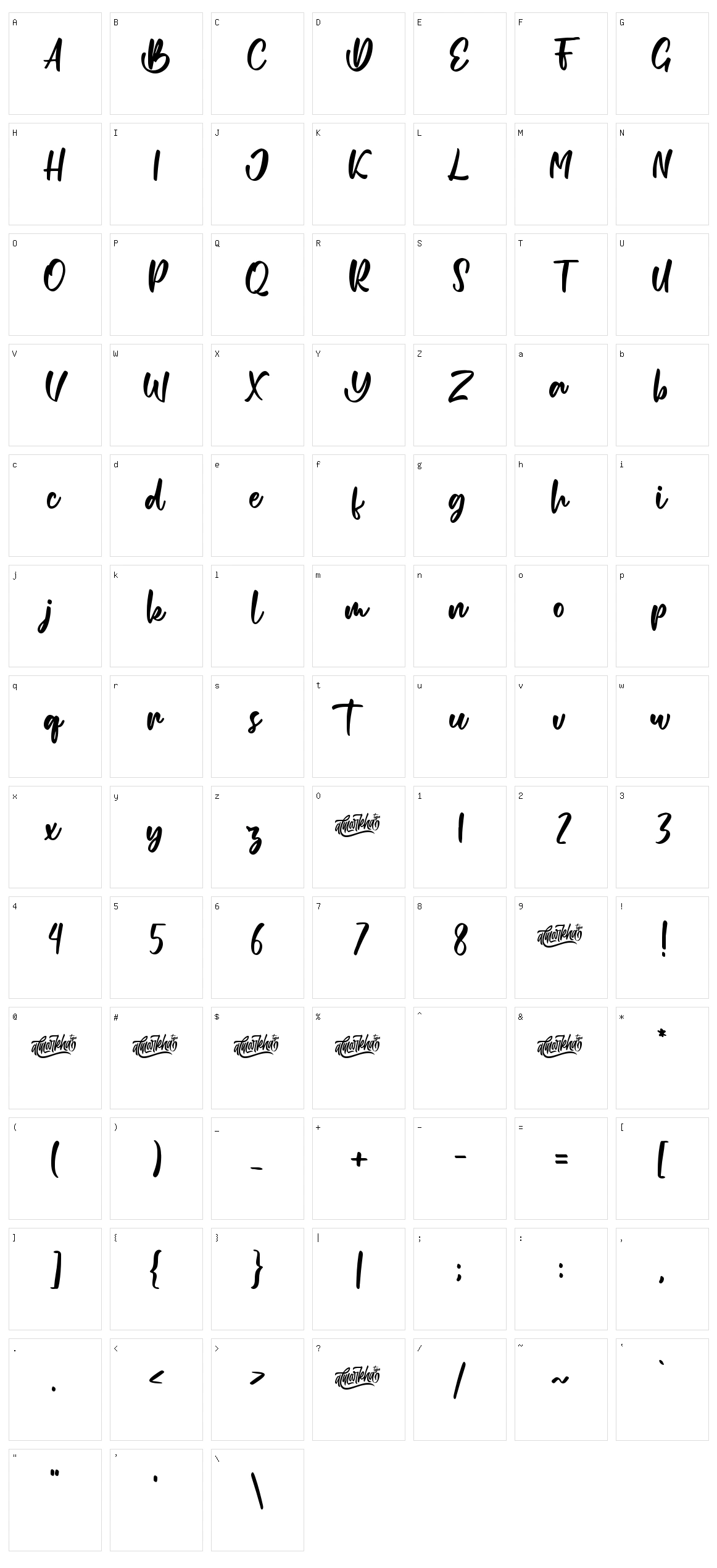
The free font Romantics is carefully designed by Almarkhatype, showcasing a thoughtful balance of creativity and usability and falls under the Script font style. When you download the ZIP file, it contains only 389.09 KB of font files, making it lightweight and quick to download. Please review the license details below to understand permitted usage and distribution rights. If license information is not available, we recommend using this font for personal projects only or contacting the author directly for commercial usage permissions.